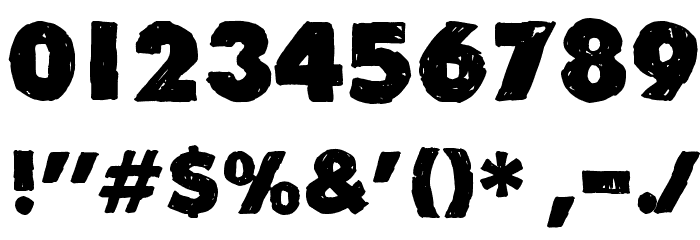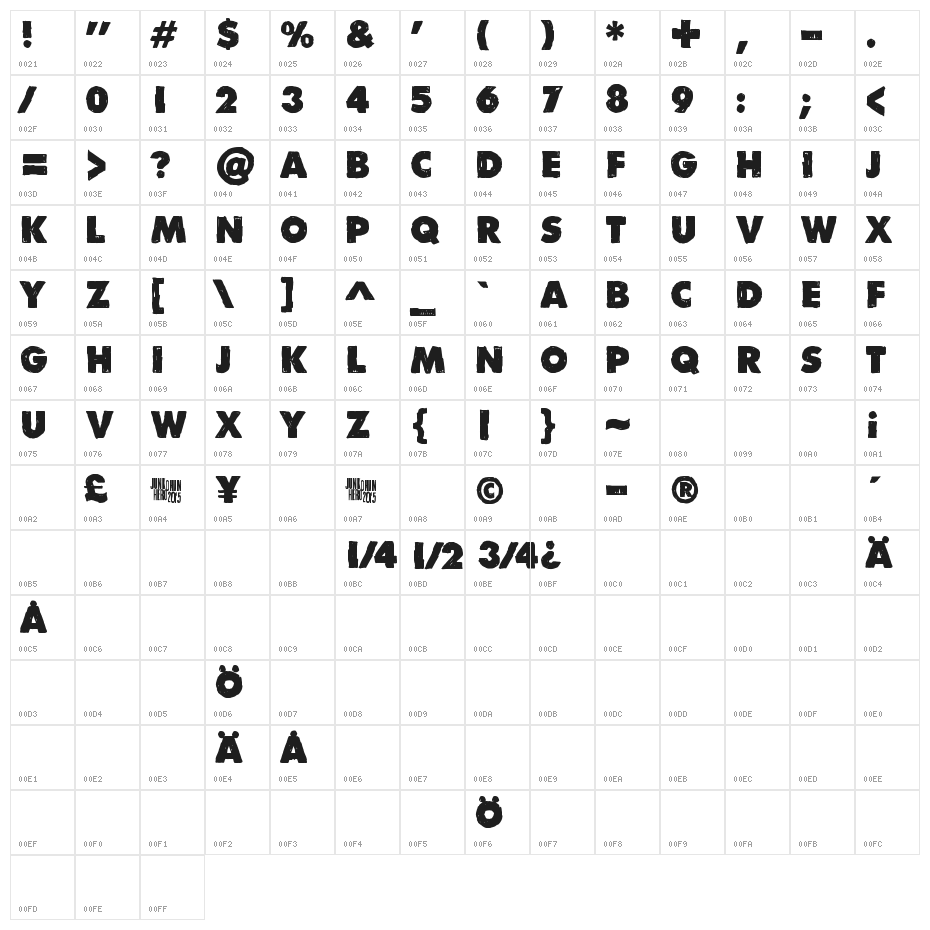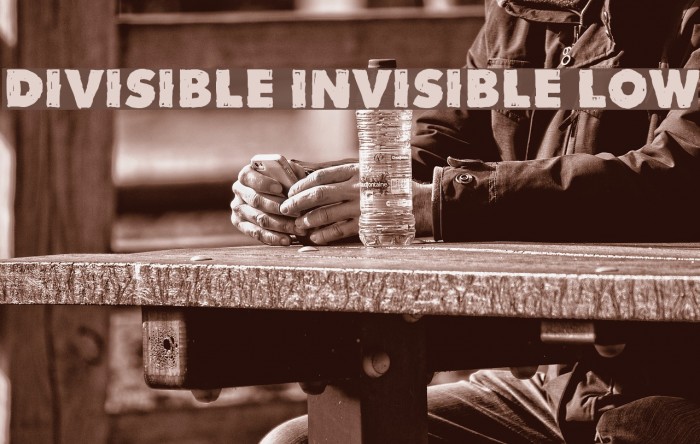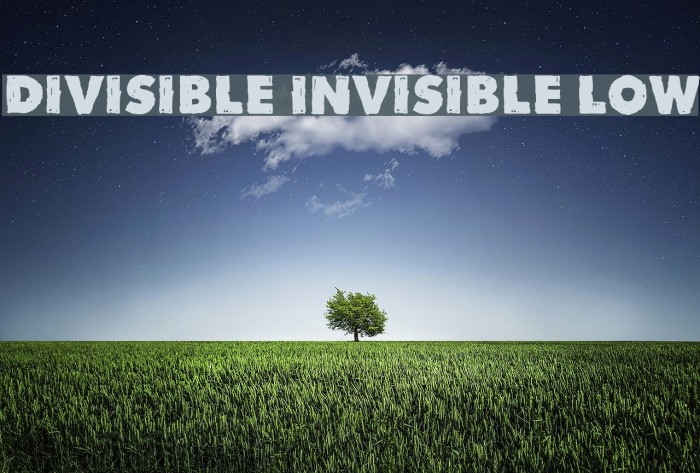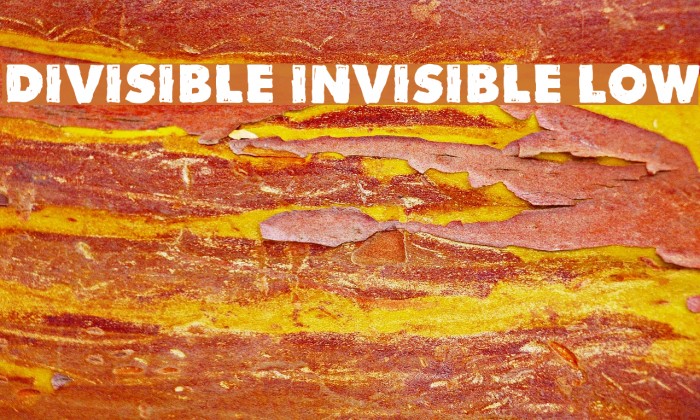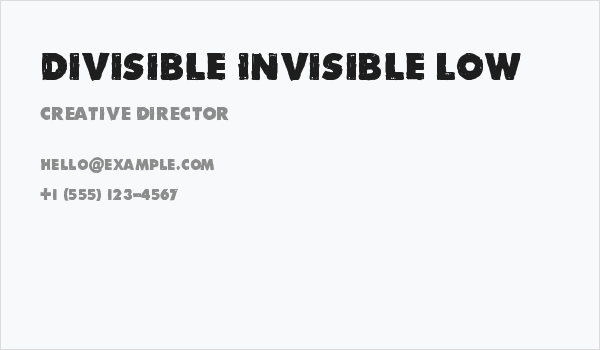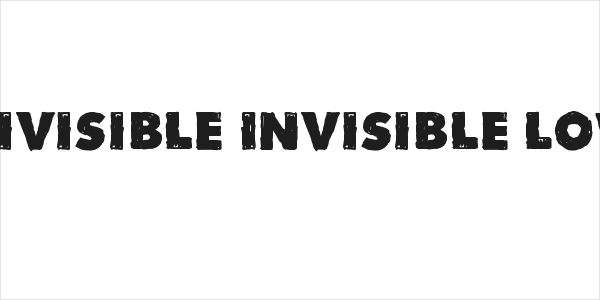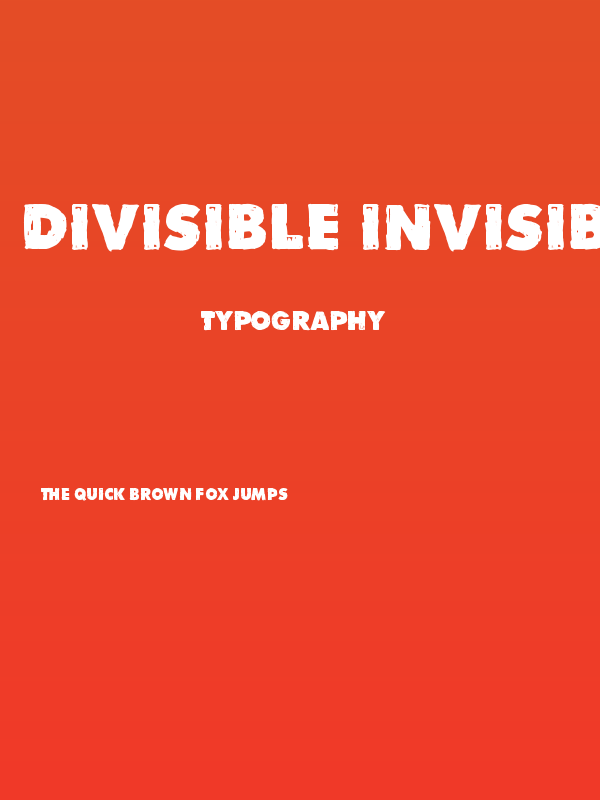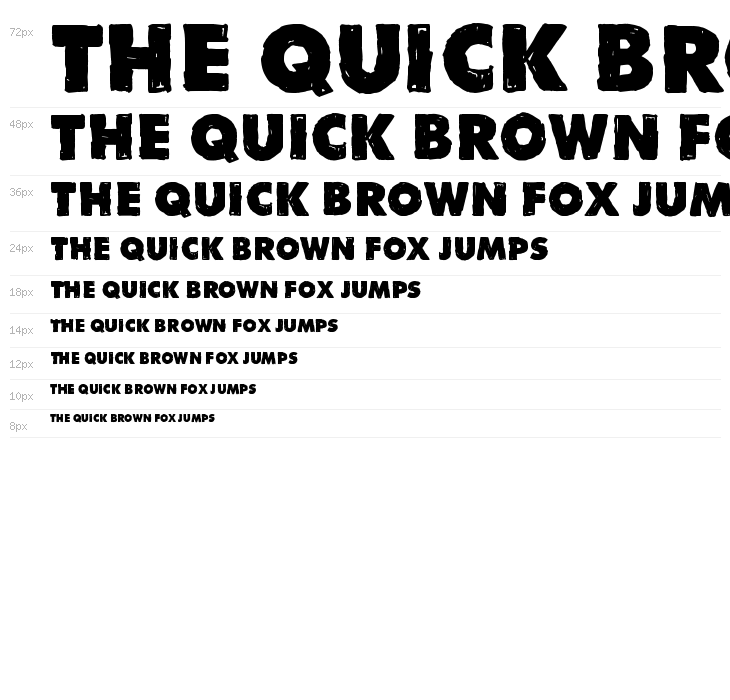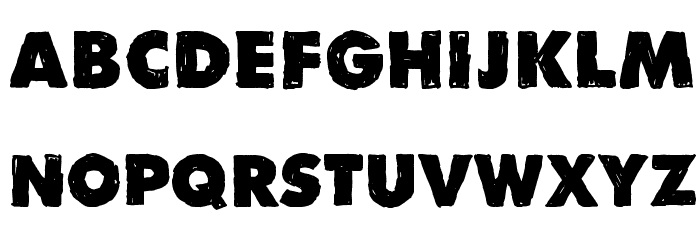
Divisible Invisible Low Font
Divisible Invisible Low Description
This font features a bold and rugged style, characterized by its distressed and textured appearance. Each character appears as if it has been stamped or printed with a rough texture, giving it a vintage and industrial feel. The uppercase and lowercase letters maintain a consistent weight, with thick strokes and minimal contrast. The numbers and special characters follow the same design, ensuring uniformity across all glyphs. This font's bold presence makes it ideal for projects that require a strong visual impact, such as posters, headlines, and branding materials. Its unique style can add a touch of grit and authenticity to any design.
| Proposed Projects | Ideal for posters, headlines, branding, and any design requiring a strong visual impact. |